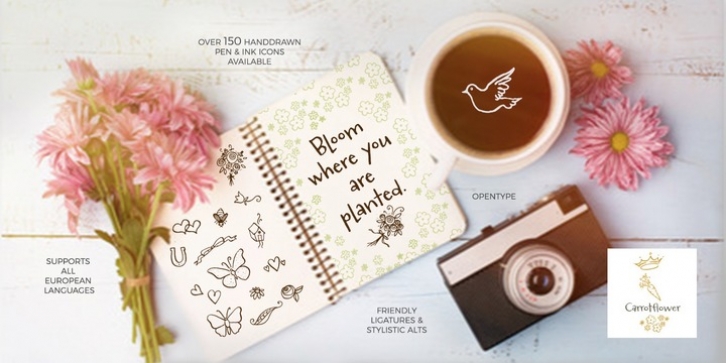
With childlike simplicity and incredible versatility, Carrotflower is King.
Drawn from one of my most commonly utilized lettering styles, its quiet unfussy nature lends itself well to birth announcements, wedding invitations, birthday parties, bar & bat mitzvahs and crafts.
Combine with Carrotflower icons (Carroflower Christmas, Carrotflower Invitation & Carrotflower Celebration) to create fun cohesive designs.